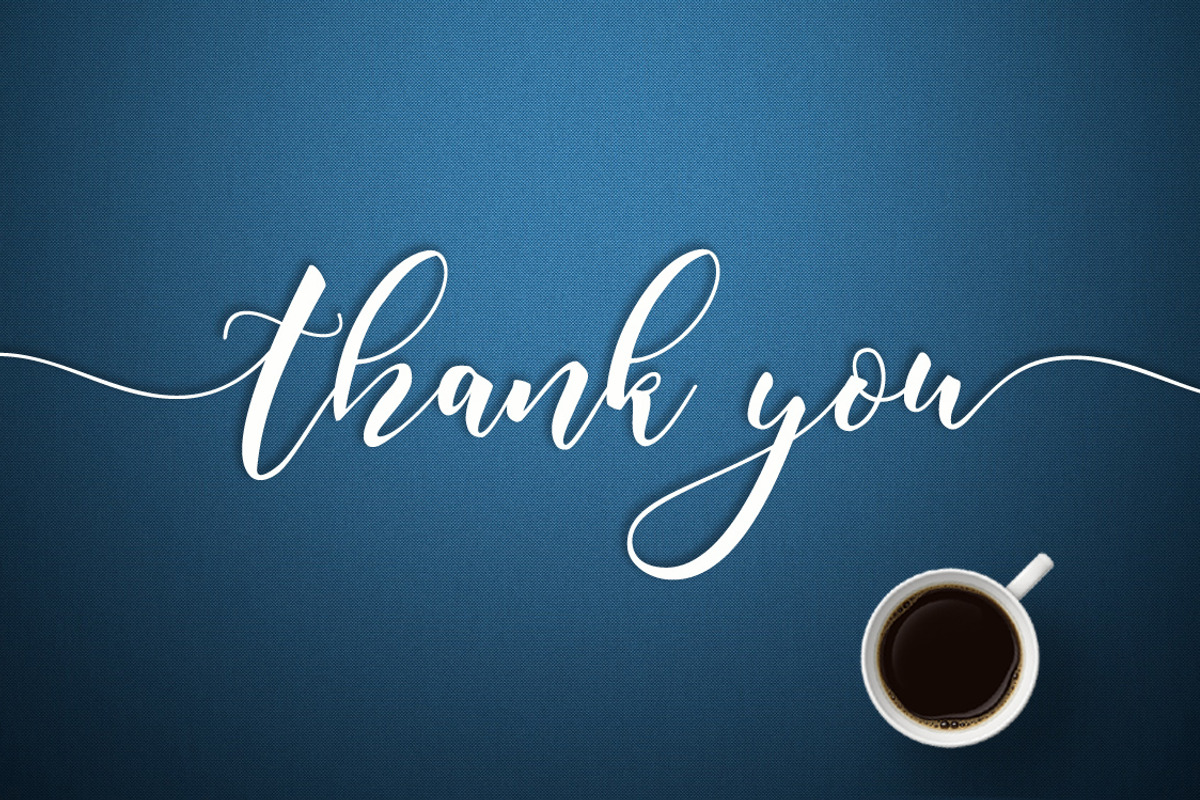
Heathens Script
Heathens Script - a new fresh & modern script with a handmade calligraphy style, decorative characters and a dancing baseline! So beautiful on invitation like greeting cards, branding materials, business cards, quotes, posters, and more design concept!
The alternative characters were divided into several Open Type features such as Swash, Stylistic Sets, Stylistic Alternates, and Ligature. The Open Type features can be accessed by using Open Type savvy programs such as Adobe Illustrator, Adobe Photoshop , Corel Draw X version, And Microsoft Word. And this Font has given PUA code (specially coded fonts). so that all the alternate characters can easily be accessed in full by a craftsman or designer.
- Unique ligatures
- Stylistic sets
- International Symbols include
- Punctuations